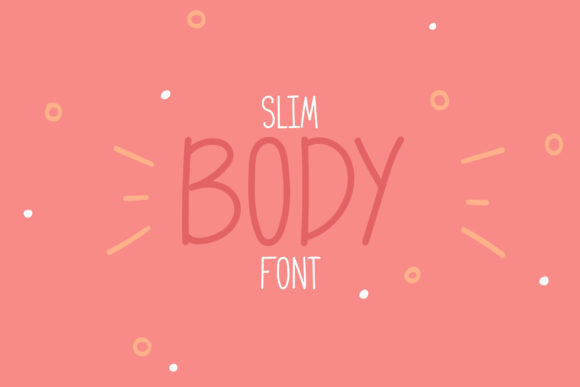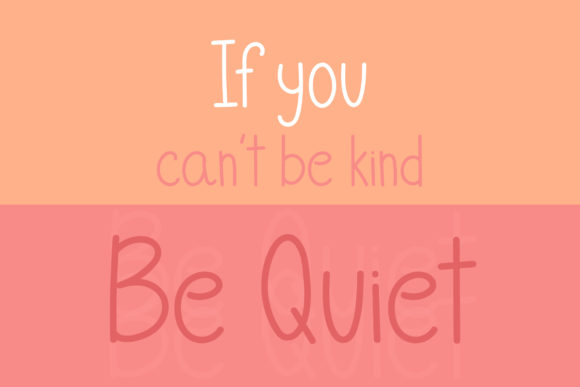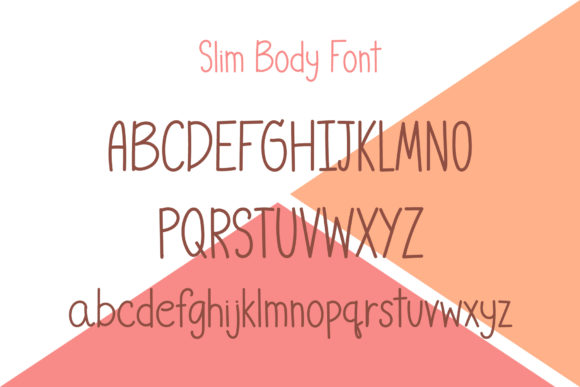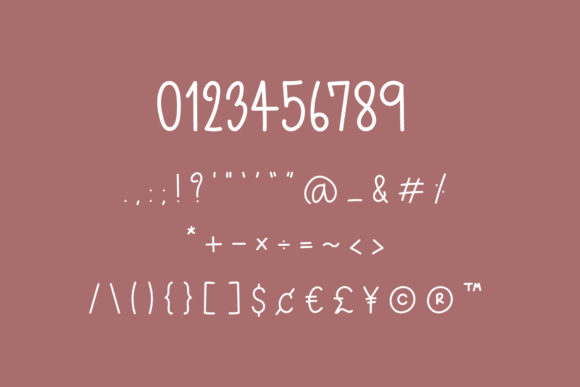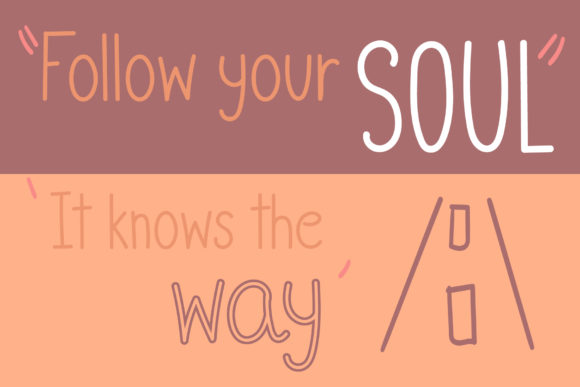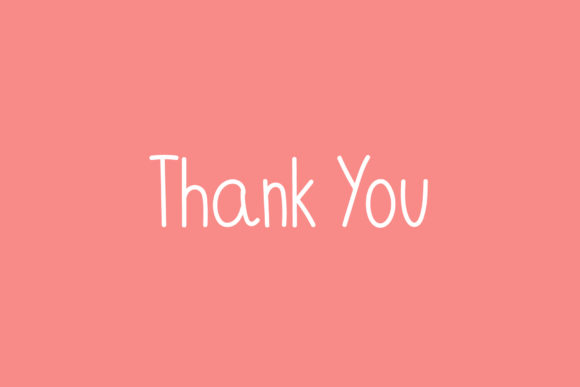
HomeScript FontsSlim Body Font Script Fonts Slim Body Font FacebookXPinterestWhatsApp Slim Body Font Poster 2 Slim Body Font Poster 3 Slim Body Font Poster 4 Slim Body Font Poster 5 Slim Body Font Poster 6 About Slim Body Font Slim Body is a lovely script font with a casual style. Fall in love with its playful charm! DOWNLOAD NOW People also explored Scary Crawl Font Oranges Marmalaide Font Rachael Font Handwritten Dreams Font Elements Font Hello Dear Font Montreal Font Register Wide A Spooky Town Font 322 0 TagsSlim Body Font Previous articleYhasmeera FontNext articleDelan Gray Font LEAVE A REPLY Cancel reply Comment: Please enter your comment! Name:* Please enter your name here Email:* You have entered an incorrect email address! Please enter your email address here Website: Save my name, email, and website in this browser for the next time I comment. Personal Use Free Deling Personal Use Free Read more about this font Loving Personal Use Free Read more about this font Kellana Personal Use Free Read more about this font Solaria Personal Use Free Read more about this font BLOG Fonts That Capture the Spirit of New York City New York City is more than just a place—it’s an experience, a rhythm, a visual language... Using Fonts in Digital Marketing: Tips to Strengthen Your Brand Identity Free vs Paid Fonts: Why Investing in Premium Fonts Is Worth It Where to Buy American Fonts Online in 2024